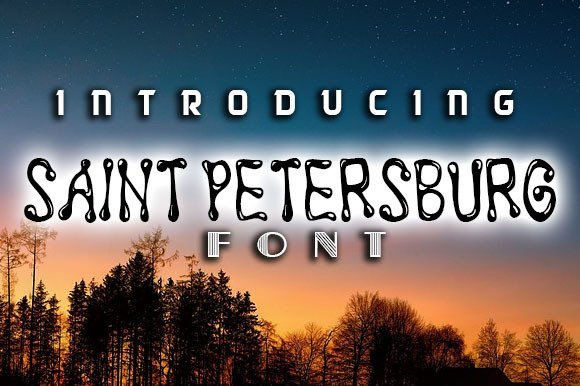
Immerse yourself in the captivating world of Saint Petersburg Font, a display font family that exudes a groovy charm, ready to infuse your creative projects with an irresistible touch of vibrancy. Crafted by the talented vladimirnikolic, this font is a masterpiece of artistic expression, designed to elevate your designs to new heights of visual appeal.
With its distinctive letterforms and playful personality, Saint Petersburg Font is the perfect choice for adding a touch of whimsy and delight to your posters, flyers, and other marketing materials. Its unique style is sure to capture the attention of your audience, leaving a lasting impression that will keep them coming back for more.